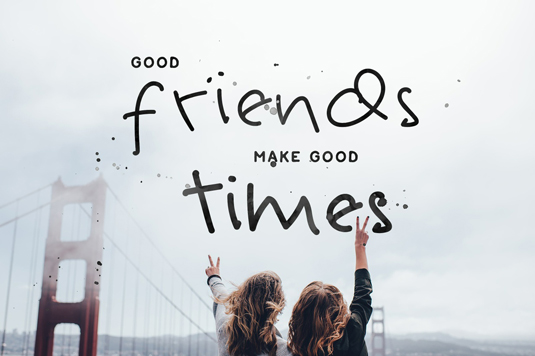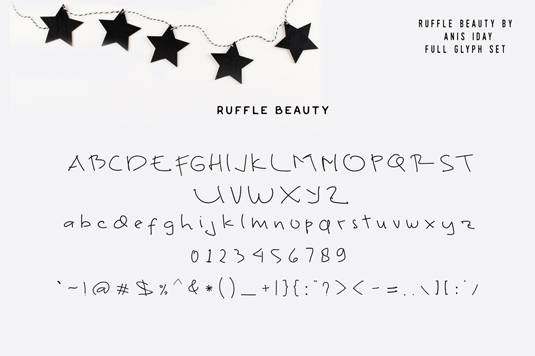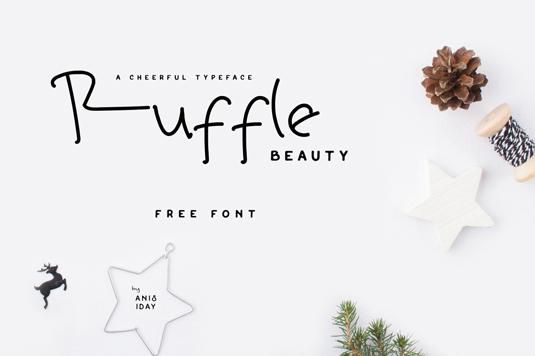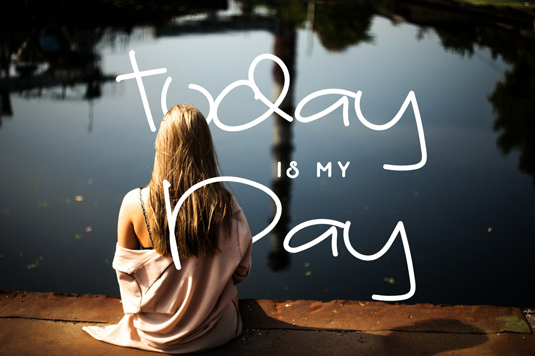
Font of the day: Ruffle Beauty
Ruffle Beauty by Anis Iday
If you're on the hunt for a playful handwritten font, today's typeface of choice Ruffle Beauty by Anis Iday could be just the solution. Ideal for poster designs, Ruffle Beauty is free for both personal and commercial use.